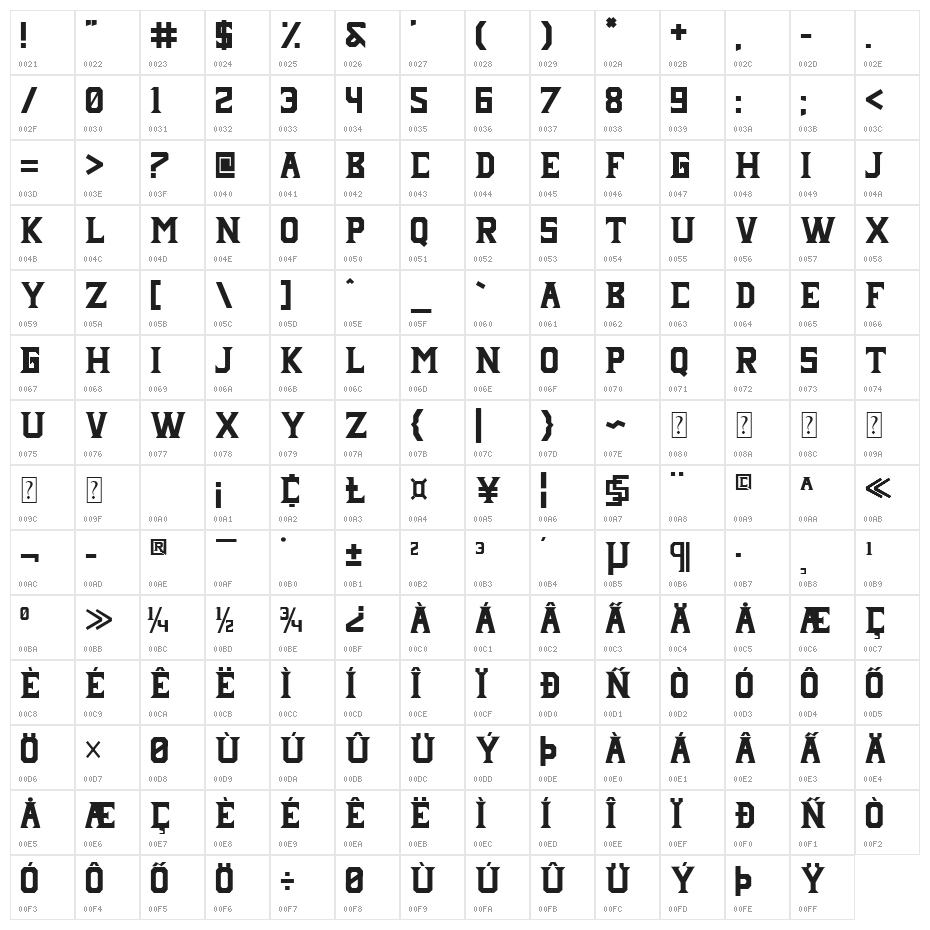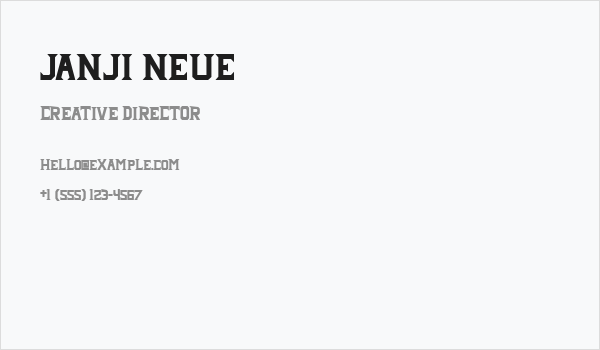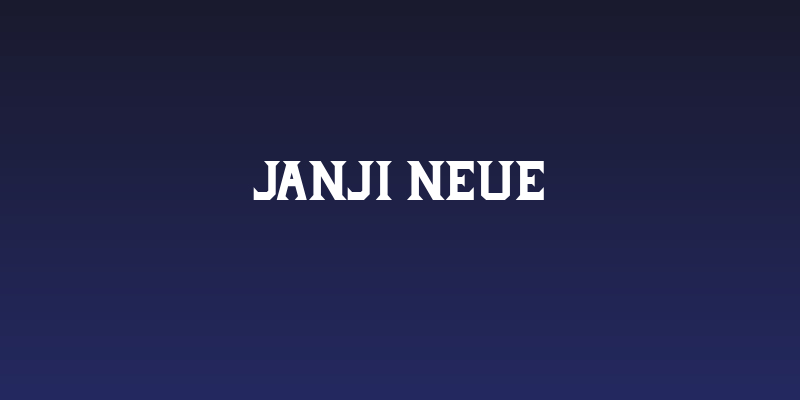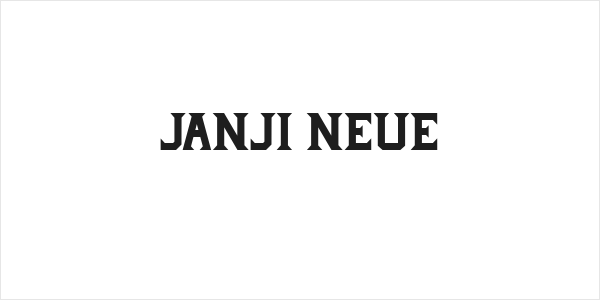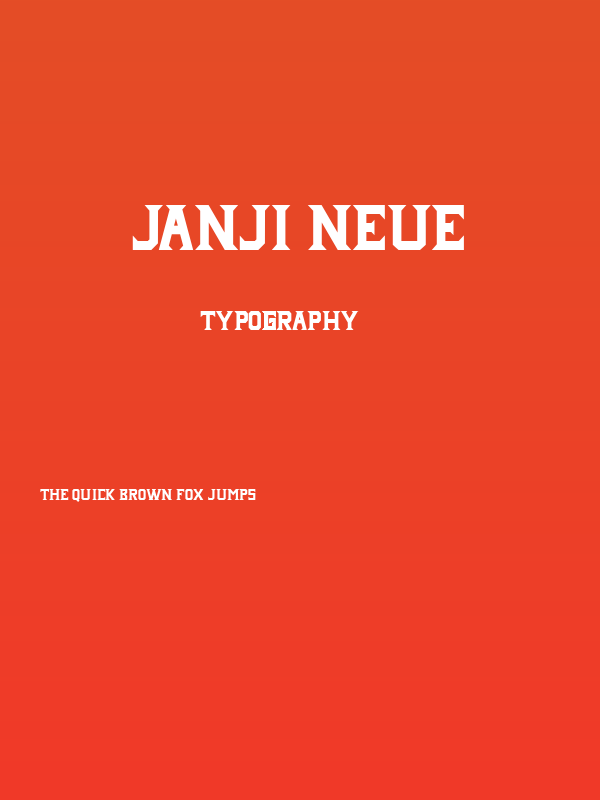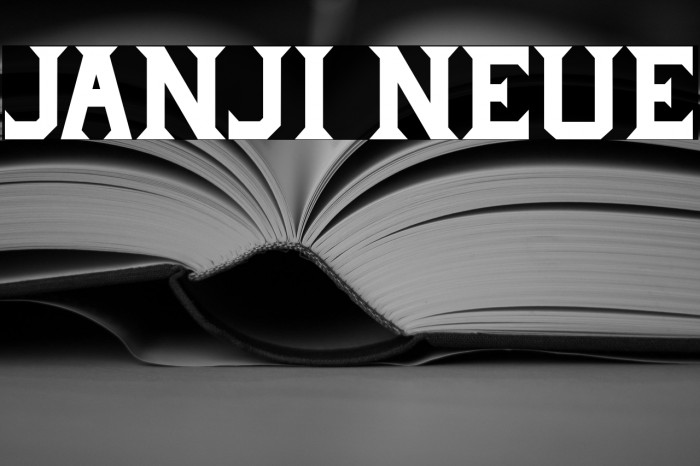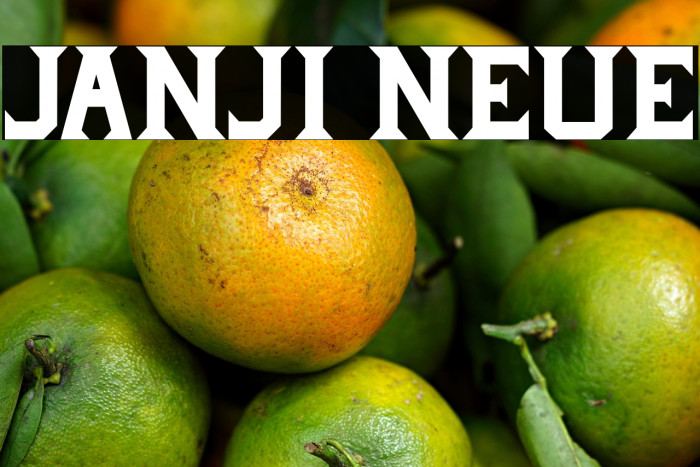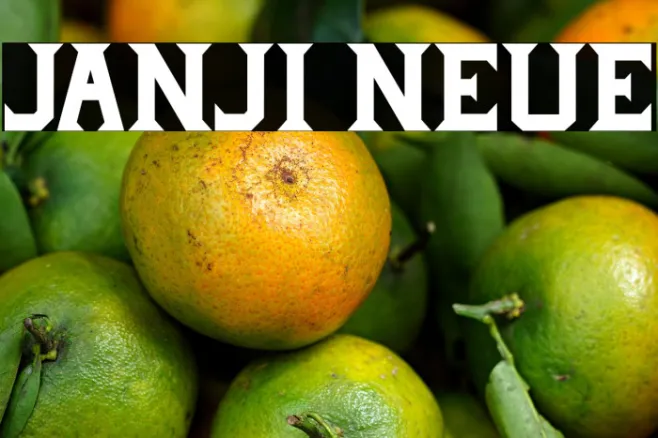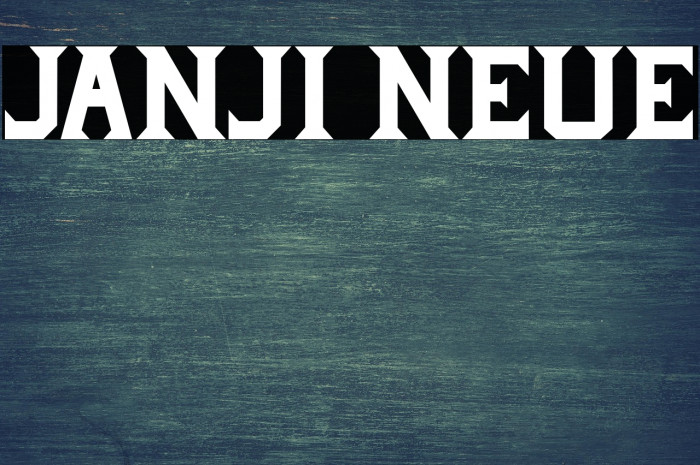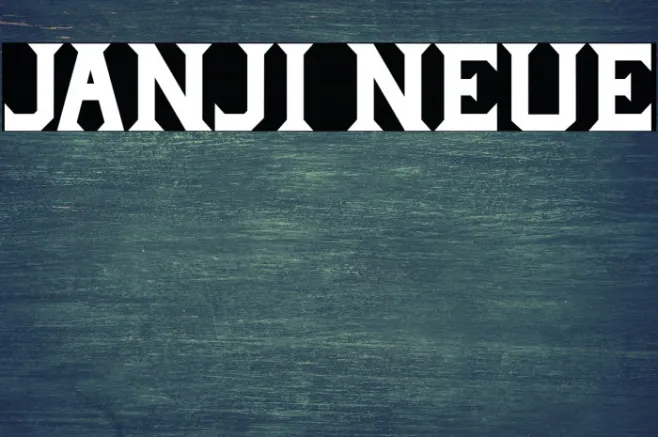
Janji Neue Font
Janji Neue Description
This font features a bold and angular design, characterized by sharp edges and a geometric structure. The uppercase letters exhibit a strong presence with their block-like forms, while the lowercase letters maintain a consistent style, ensuring readability. The numerals are equally bold, matching the overall aesthetic of the alphabet. Special characters are designed to complement the letters and numbers, maintaining the same angular and robust style. This font is ideal for projects that require a striking and modern look, making it suitable for headlines, posters, and branding materials.